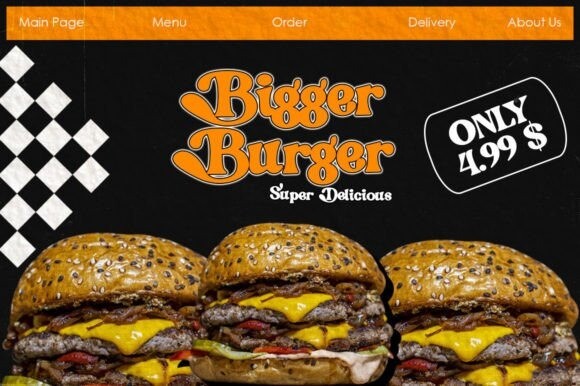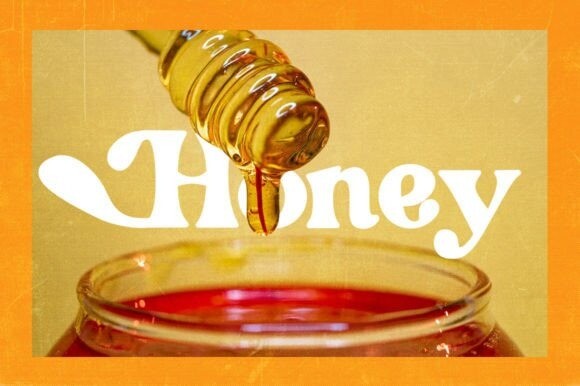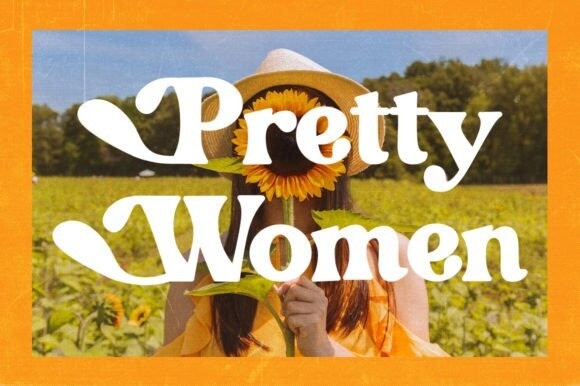
Bevikari Font
Bevikari Font is a captivating and versatile bold retro serif font that effortlessly transports your designs back in time while adding a touch of modern flair. Suitable for any project such as logos, branding projects, homeware designs, product packaging, mugs, quotes, posters, shopping bags, t-shirts, book covers, name cards, invitation cards, greeting cards, labels, photography, watermark, special events, and all your other lovely projects that need a beautiful taste.